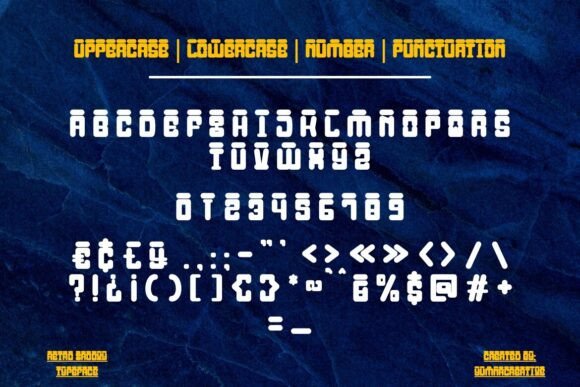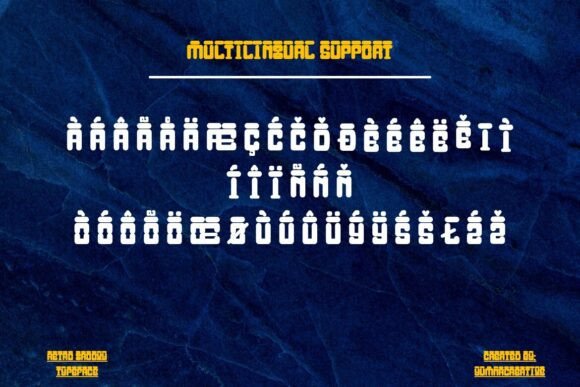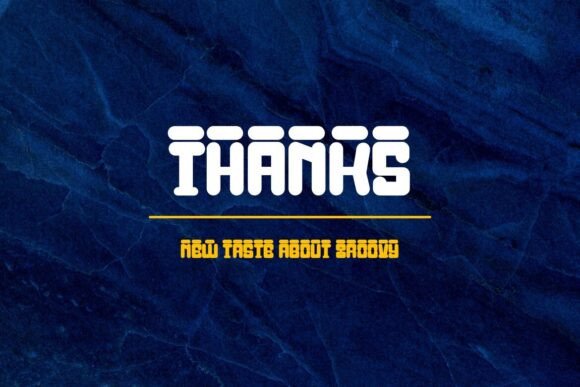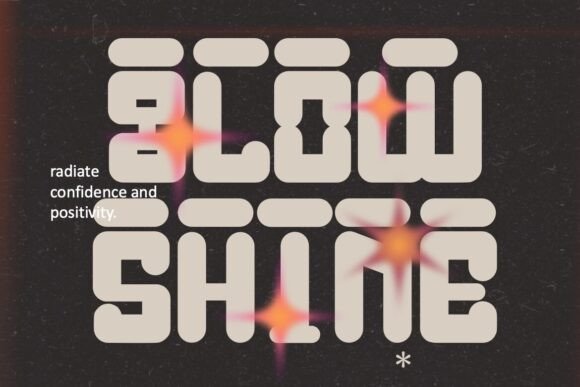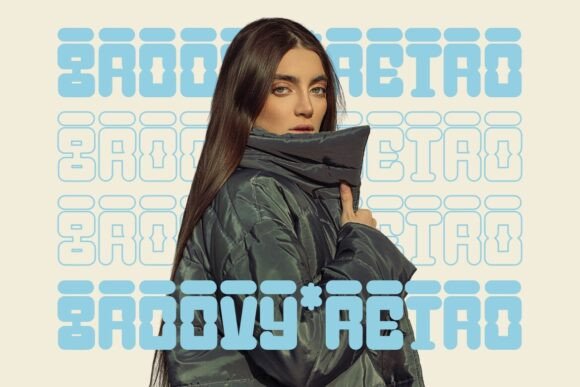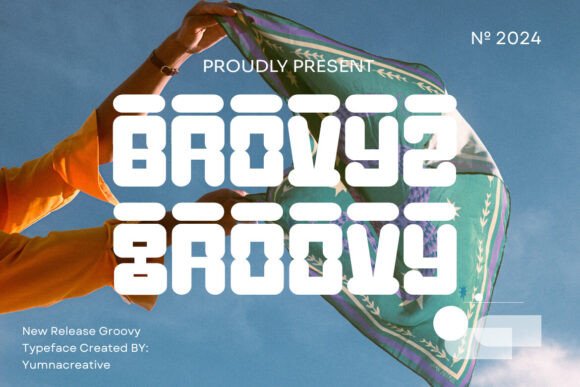
Brovyz Groovy Font: Adding a Playful Twist to Your Designs
In the world of typography, fonts play a crucial role in conveying the tone and personality of a design. For designers and crafters looking to add a touch of whimsy and style to their work, Brovyz Groovy Font is an excellent choice. This bold, decorative font is perfect for creating eye-catching titles, logos, and other creative designs that demand attention.
The Unique Feature of Brovyz Groovy Font
So, what sets Brovyz Groovy Font apart from other fonts? The answer lies in its distinctive design element: each letter has a unique line above it. This playful twist adds a fun and stylish touch to your text, making it perfect for designs that require a bit of personality. Whether you’re working on a logo, a poster, or a social media graphic, Brovyz Groovy Font is sure to make your text stand out.
Perfect for Eye-Catching Titles and Creative Designs
Brovyz Groovy Font is specifically designed for use in titles, headings, and other creative designs. Its bold and decorative style makes it perfect for grabbing the attention of your audience and adding a touch of flair to your work. Whether you’re a designer, a crafter, or simply someone who loves to dabble in DIY projects, this font is an excellent addition to your toolkit.
Key Features of Brovyz Groovy Font
- Bold and Decorative: Brovyz Groovy Font is a bold and decorative font that’s perfect for making a statement.
- Unique Line Above Each Letter: Each letter has a unique line above it, adding a fun and stylish touch to your text.
- Playful Twist: The font’s playful twist makes it perfect for designs that require a bit of personality.
- Easy to Read: Despite its decorative style, Brovyz Groovy Font is easy to read, making it perfect for use in titles and headings.
How to Use Brovyz Groovy Font in Your Designs
- Use it as a Title Font: Brovyz Groovy Font is perfect for use in titles and headings. Use it to add a touch of personality to your text and make it stand out.
- Experiment with Different Colors: The font’s bold and decorative style makes it perfect for use with a variety of colors. Experiment with different colors to find the one that works best for your design.
- Pair it with Other Fonts: Brovyz Groovy Font pairs well with other fonts, especially those with a more minimalist style. Experiment with different font combinations to find the one that works best for your design.
Why Designers and Crafters Love Brovyz Groovy Font
Designers and crafters love Brovyz Groovy Font for its unique and playful style. Here are a few reasons why:
- It’s Fun and Playful: The font’s playful twist makes it perfect for designs that require a bit of personality.
- It’s Versatile: The font’s bold and decorative style makes it perfect for use in a variety of designs, from logos and posters to social media graphics and more.
In conclusion, Brovyz Groovy Font is a bold, decorative font with a playful twist. Its unique design element, which features a unique line above each letter, adds a fun and stylish touch to your text. Perfect for eye-catching titles and creative designs, this font is an excellent addition to any designer’s or crafter’s toolkit. With its ease of use, versatility, and playful style, Brovyz Groovy Font is sure to become a favorite among designers and crafters.